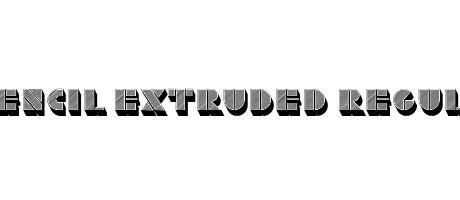
Stencil Extruded
Stencil Extruded Regular boasts a bold, industrial aesthetic. Its blocky letters, reminiscent of chiseled metal, feature a subtle, textured surface that suggests depth and weight. The extruded effect creates a three-dimensional feel, enhancing the strong, almost monumental presence of the typeface.